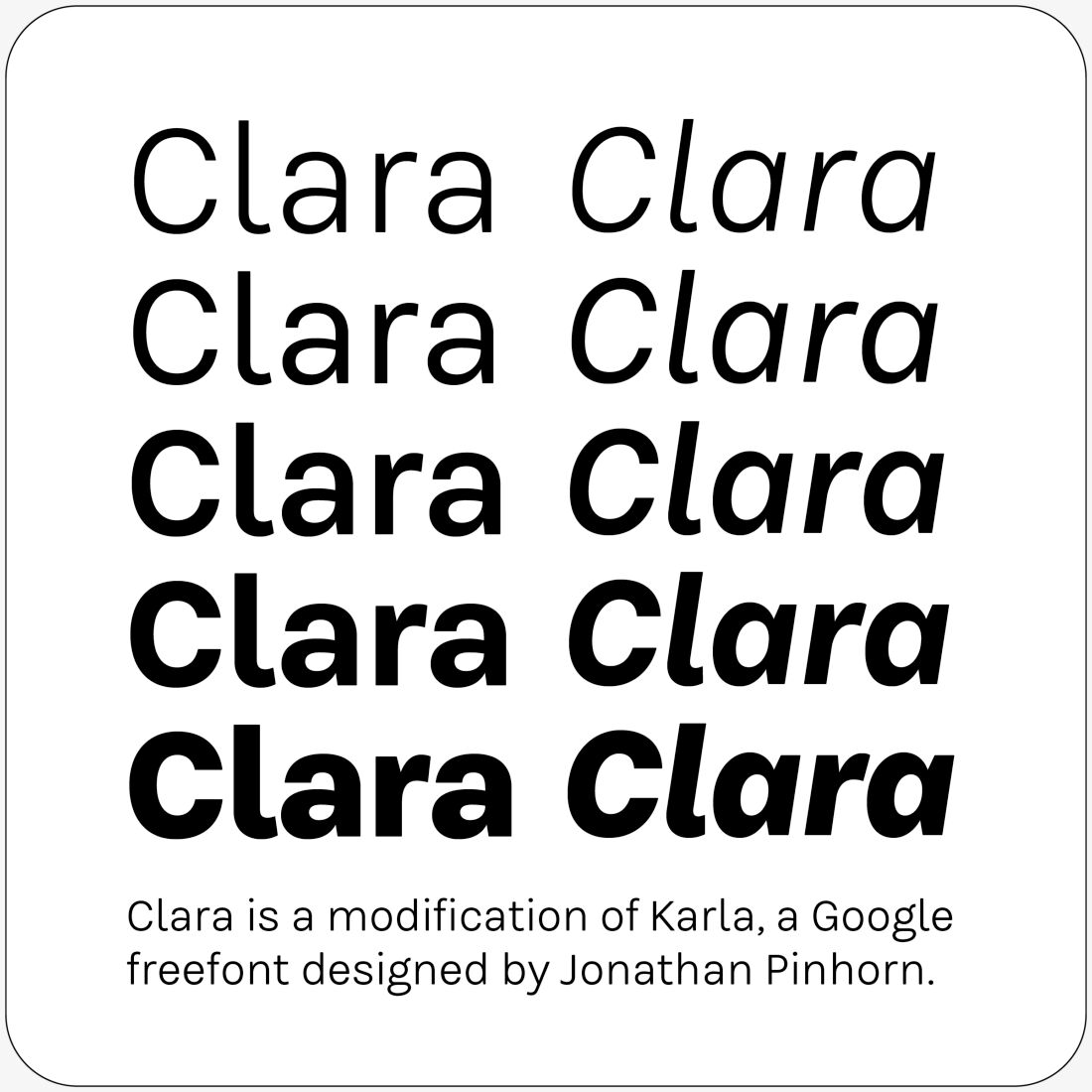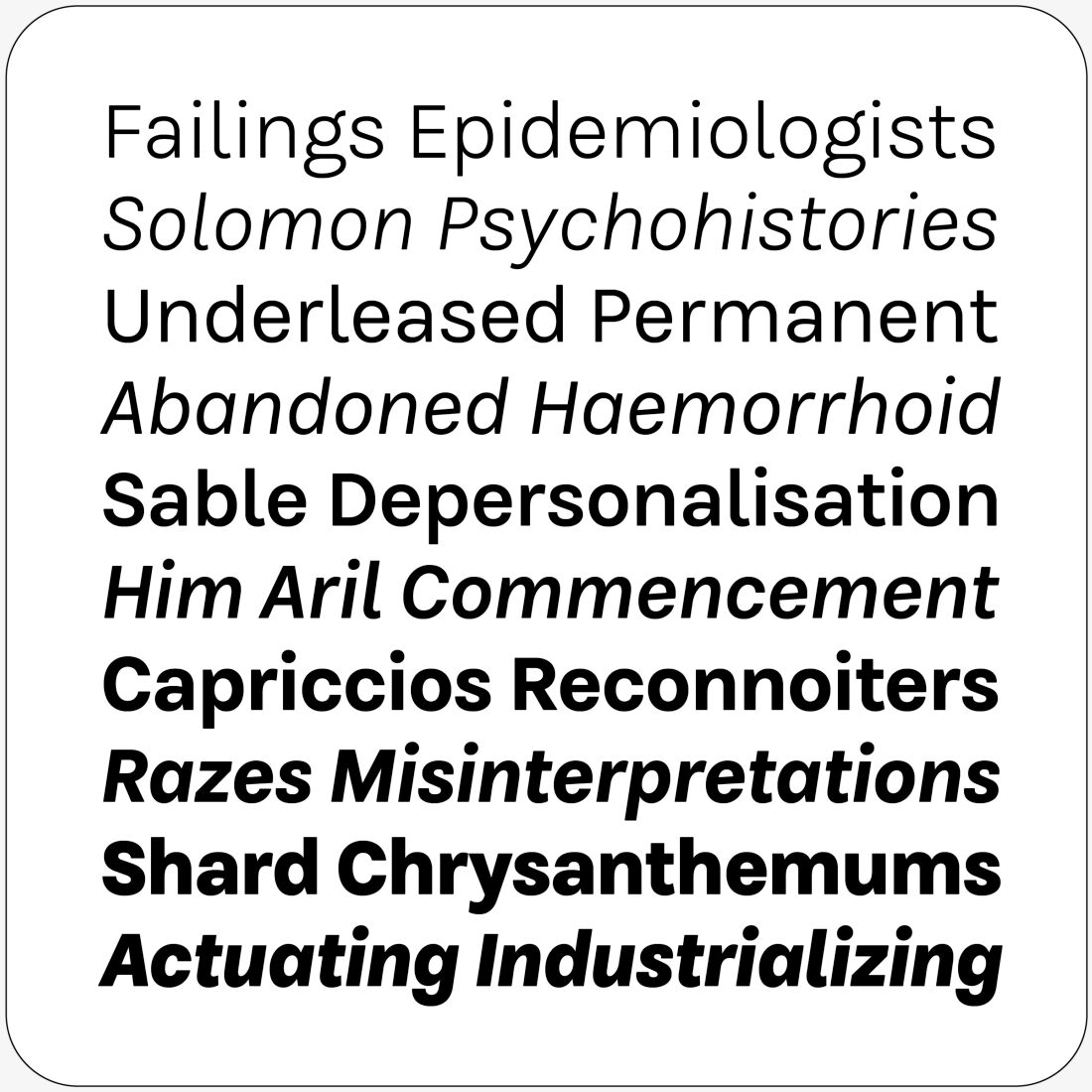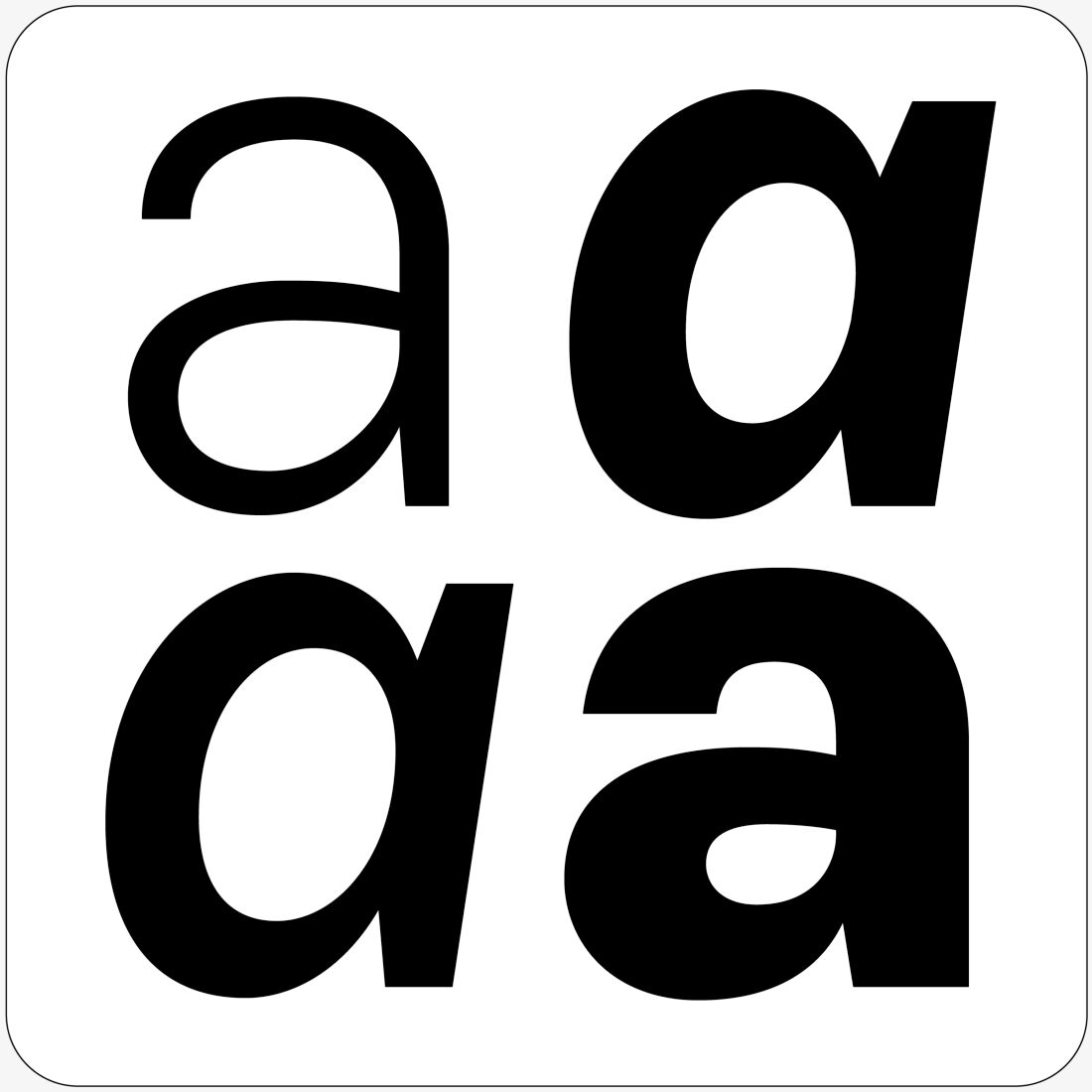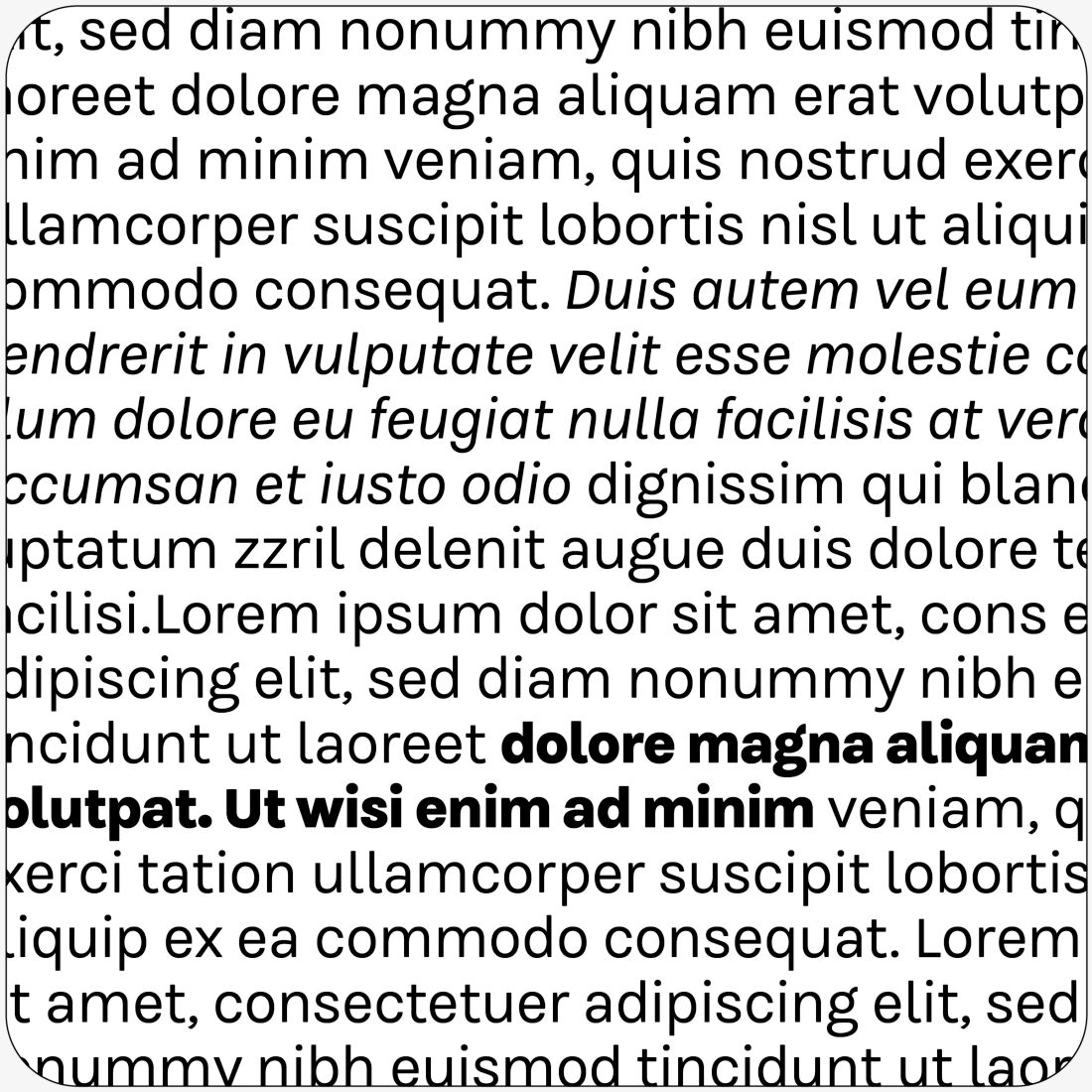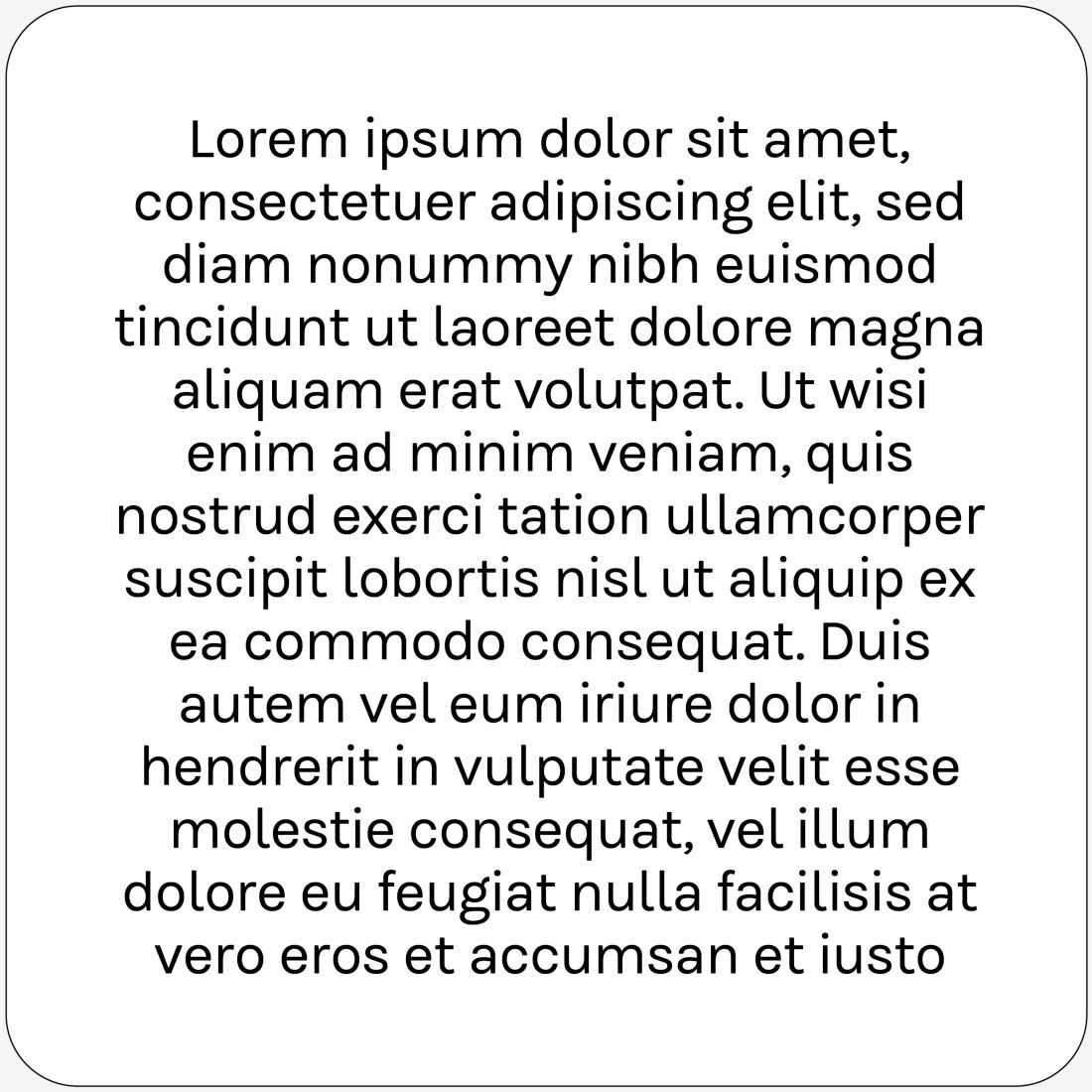
Clara
Clara: How Karla Became Clarinetta
Clara is a modification of the Google freefont Karla, a sans serif family designed by Jonathan Pinhorn. As an open-source font, Clara remains freely available here and is not sold commercially. Jürgen Huber modified a number of details, expanded Clara to a full Latin extended character set and refined its spacing and kerning. And even more importantly, Clara inspired the development of the Clarinetta typeface family—a contemporary serif system comprising three distinct styles: Clarinetta, Clarinetta Italic, and Clarinetta Unicase.